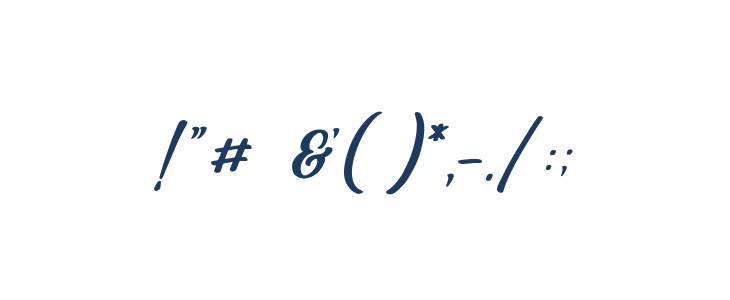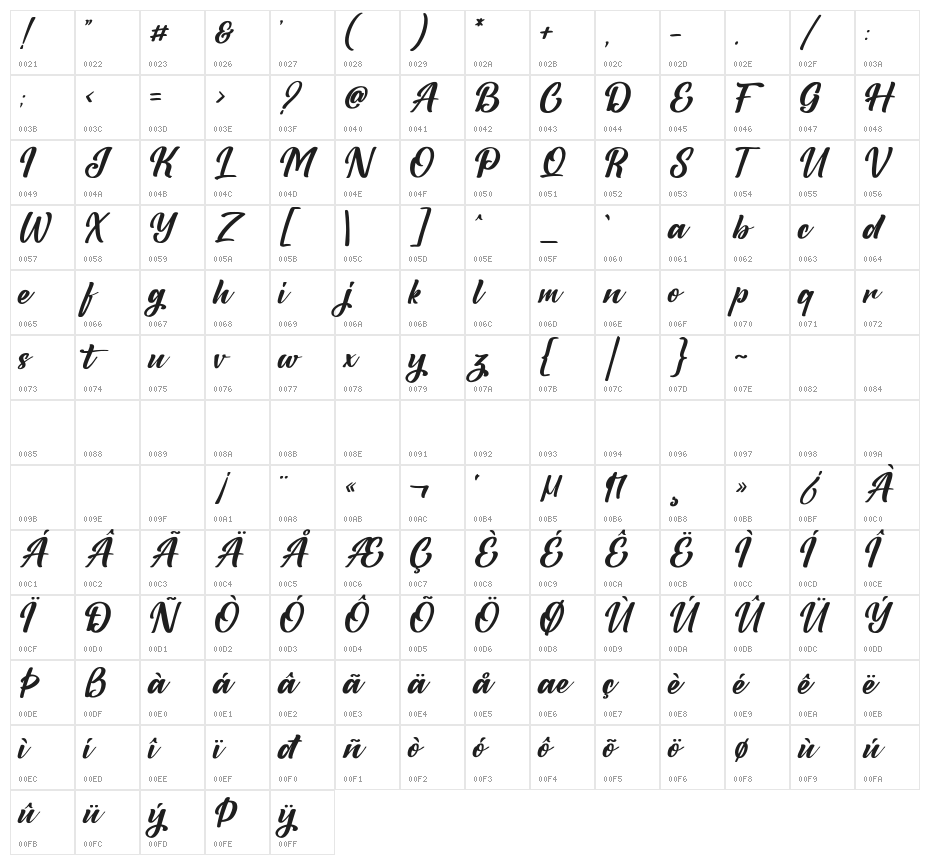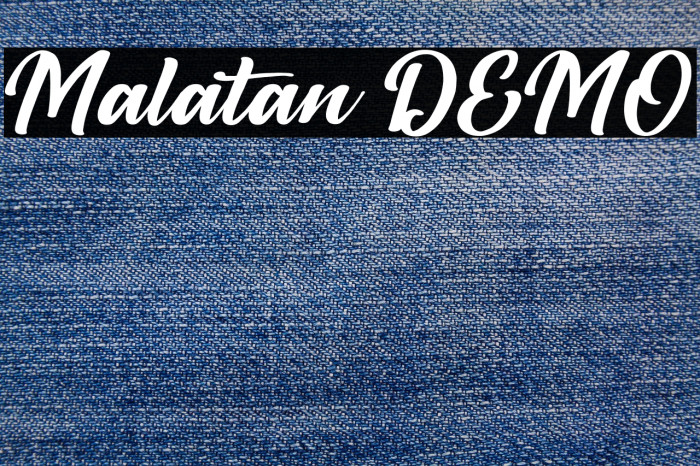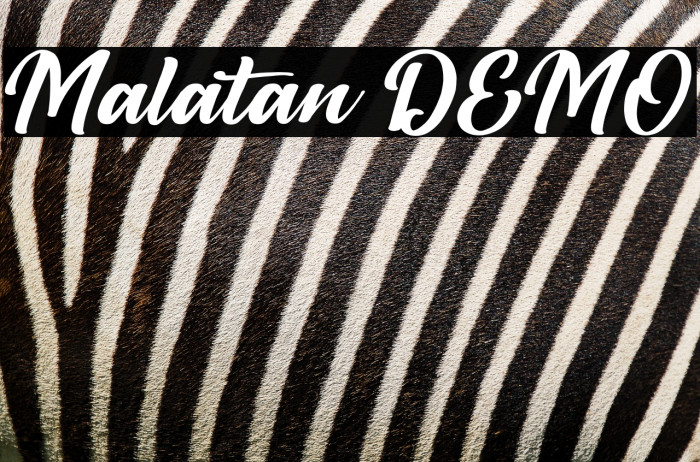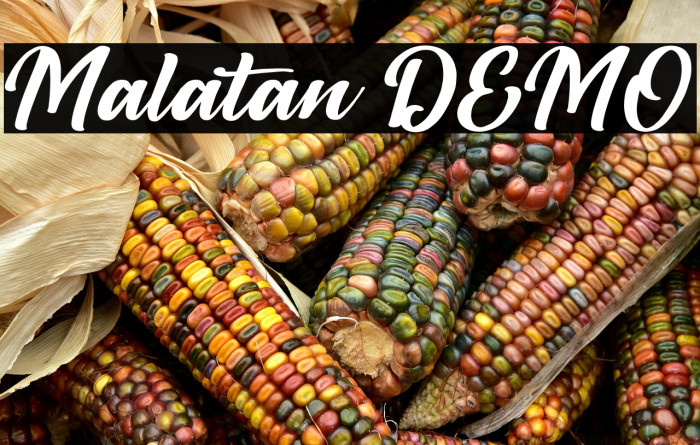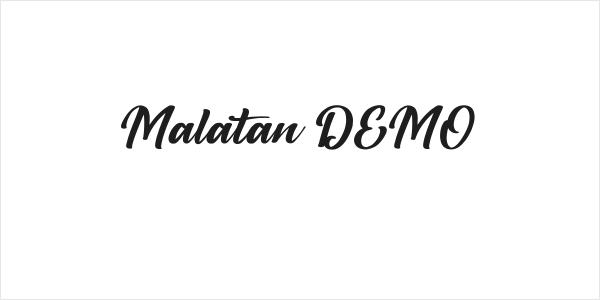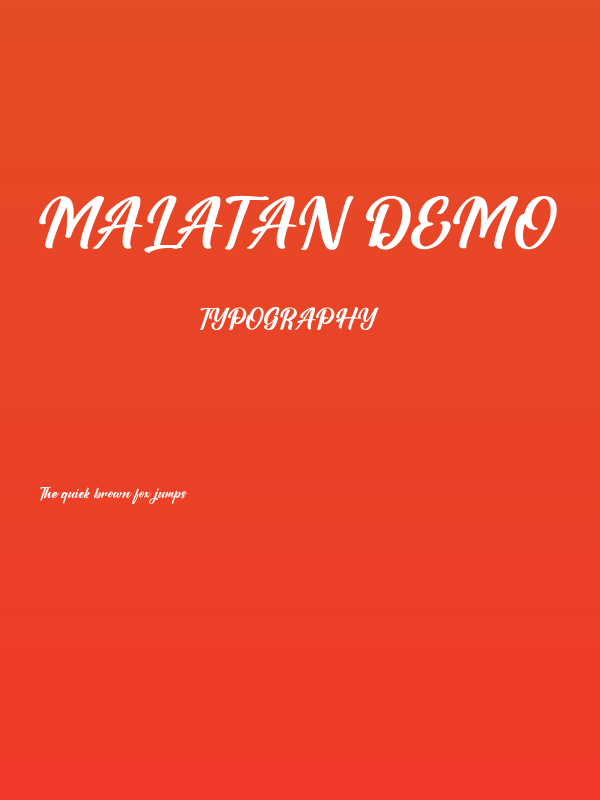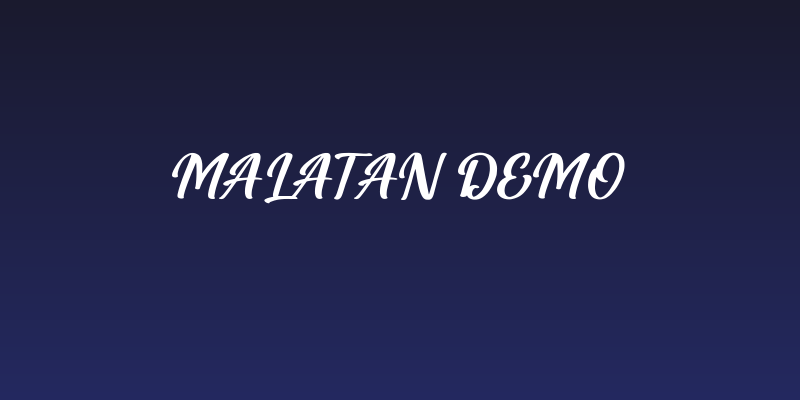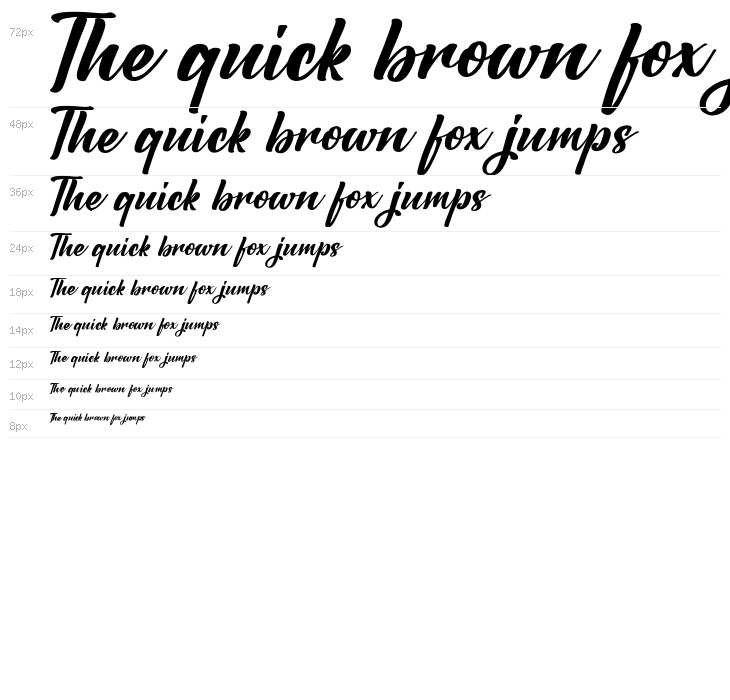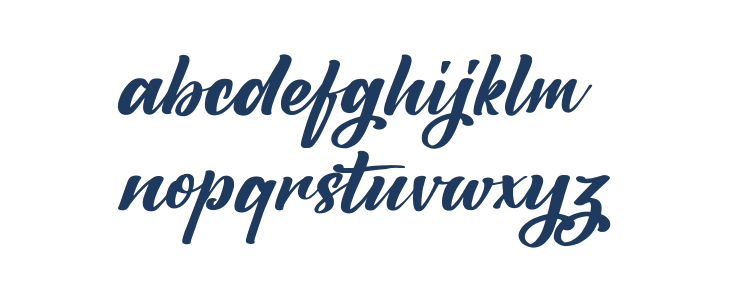
Malatan DEMO Font
Malatan DEMO Description
This font features a bold and expressive script style with a flowing, cursive design. The characters are interconnected, creating a sense of movement and elegance. The uppercase letters are slightly more embellished, while the lowercase letters maintain a consistent flow. The font includes a full set of uppercase and lowercase letters, numbers, and a variety of special characters. Its bold strokes and smooth curves make it highly legible, yet it retains a decorative flair. The overall appearance is dynamic and stylish, suitable for projects that require a touch of sophistication and creativity.